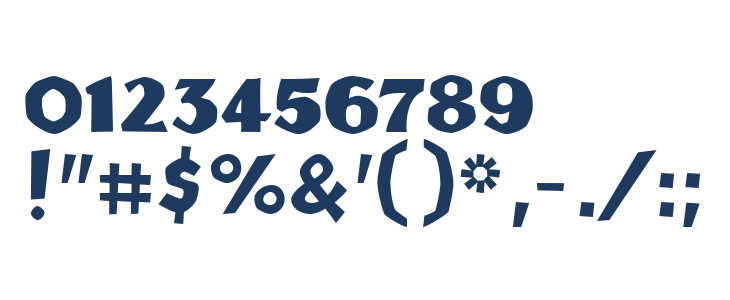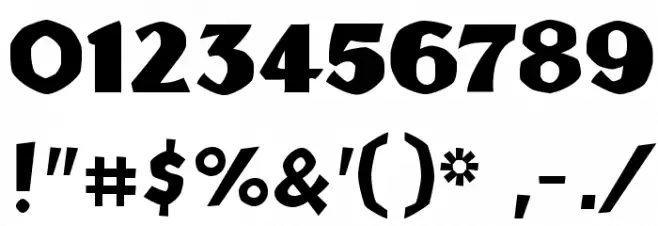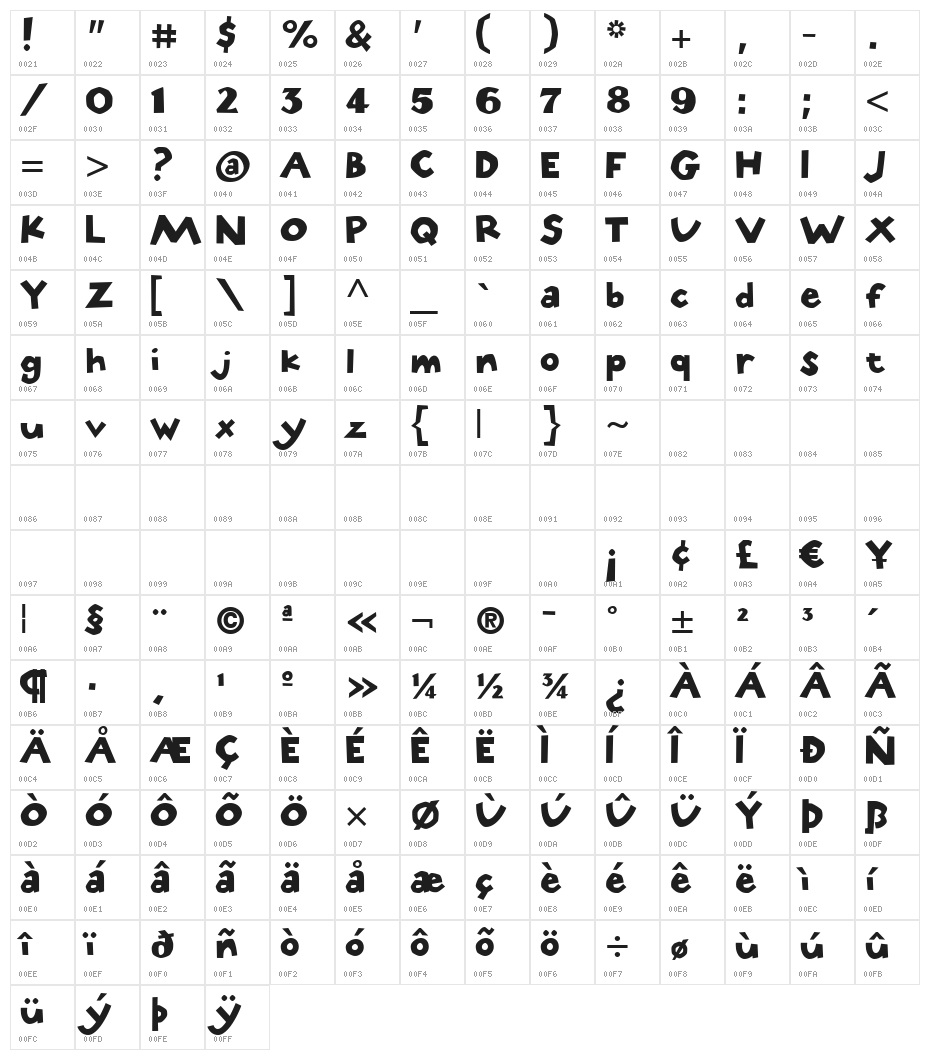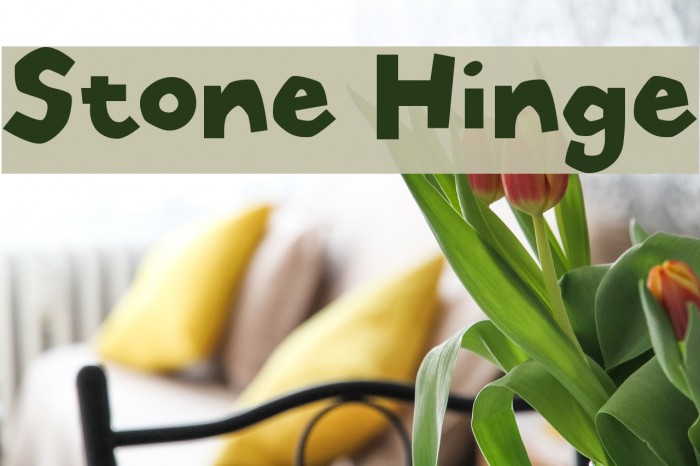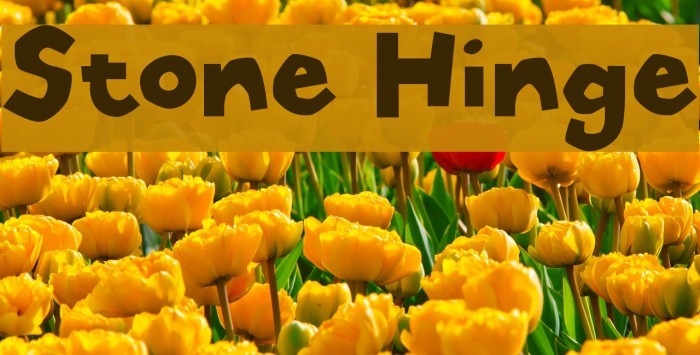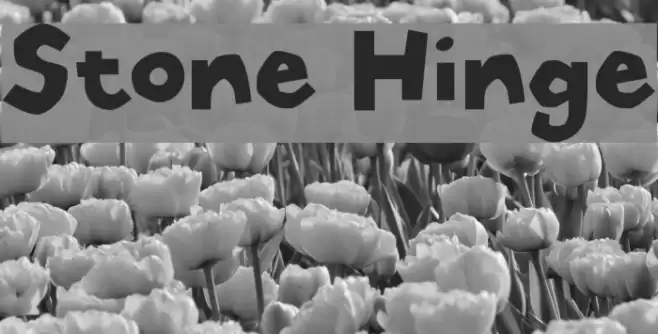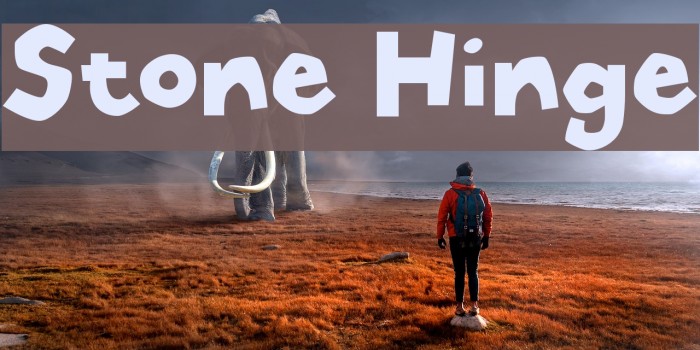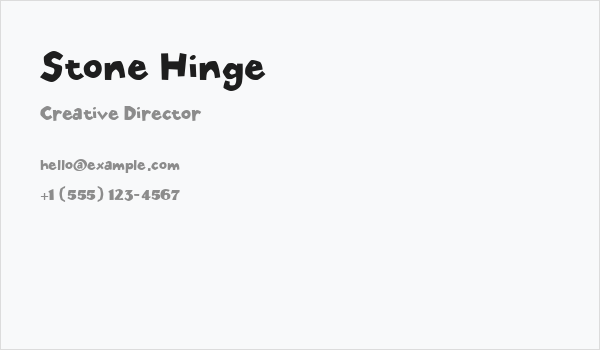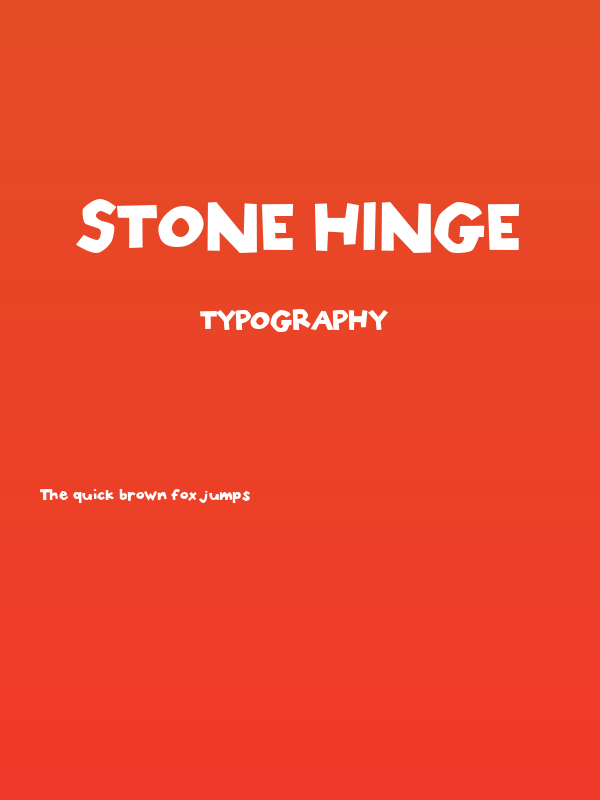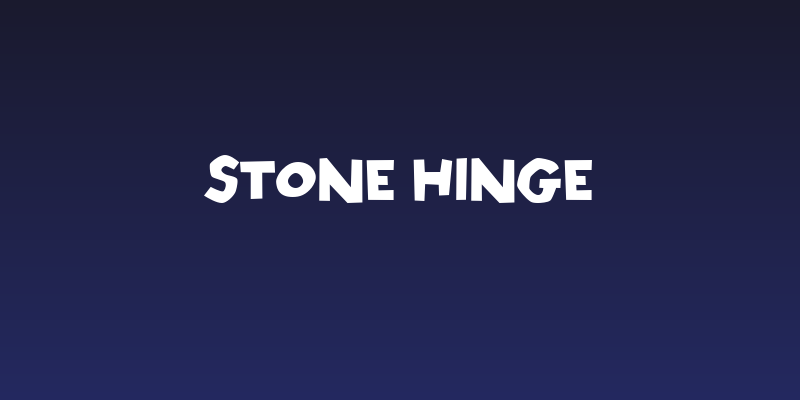
Stone Hinge Font
Stone Hinge Description
This font features a bold and playful design with a distinctly chunky and geometric appearance. The characters are crafted with a unique angular style, reminiscent of ancient stone carvings, giving it a primitive yet modern feel. The uppercase and lowercase letters maintain a consistent weight, creating a cohesive look across the alphabet. Numbers and special characters are designed with the same boldness, ensuring uniformity throughout. The font's thick strokes and lack of serifs contribute to its strong visual impact, making it ideal for attention-grabbing headlines or creative projects.
| Proposed Projects | Perfect for logos, posters, children's books, and any project requiring a bold, playful typeface. |